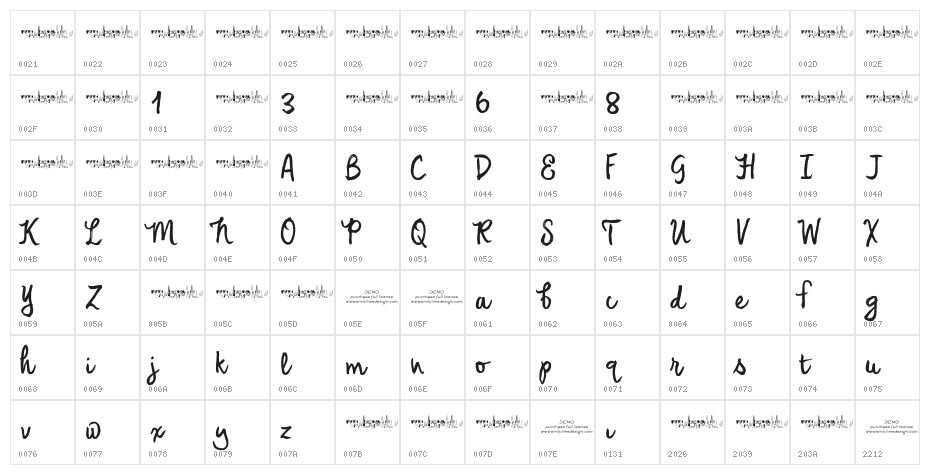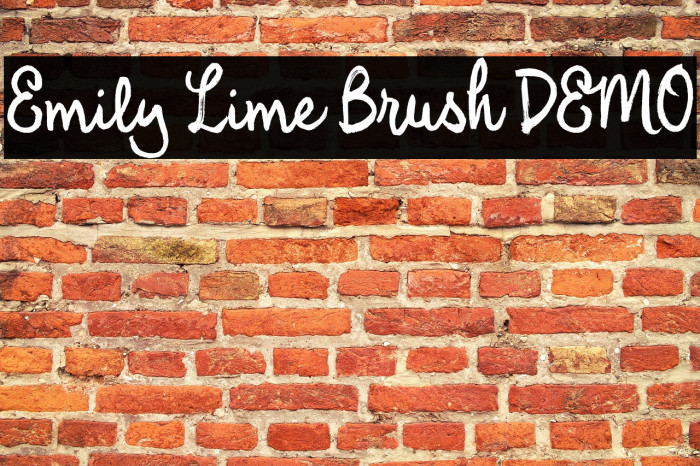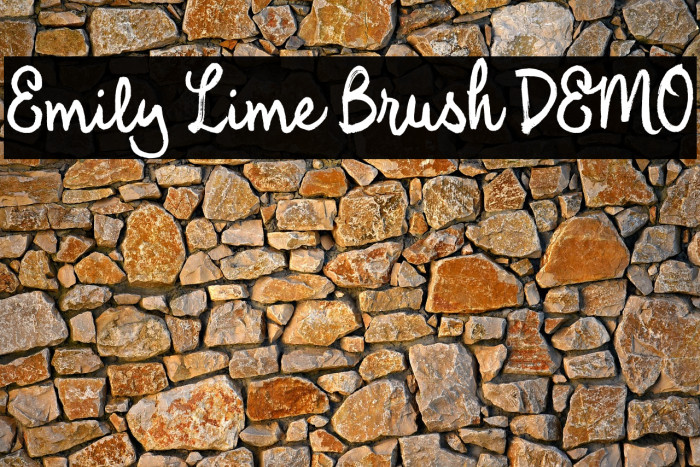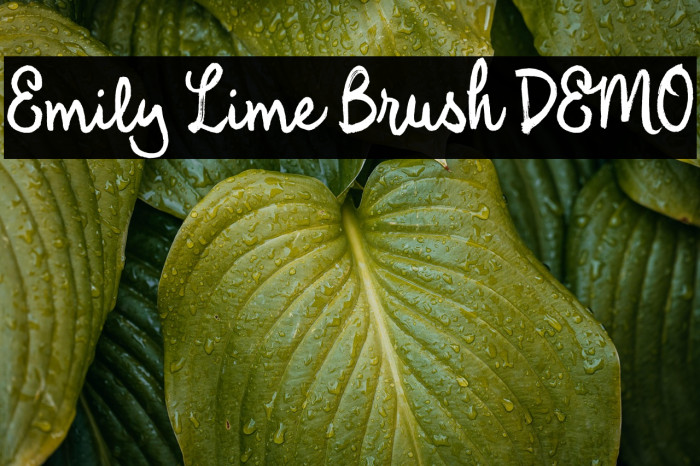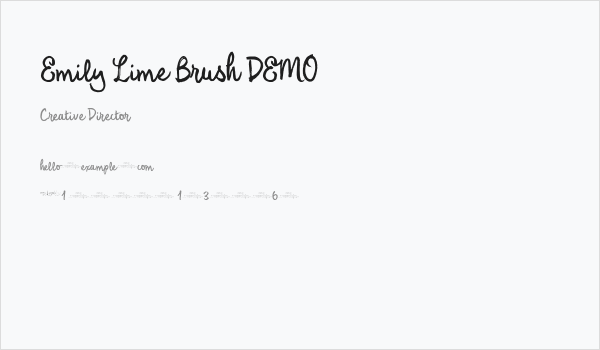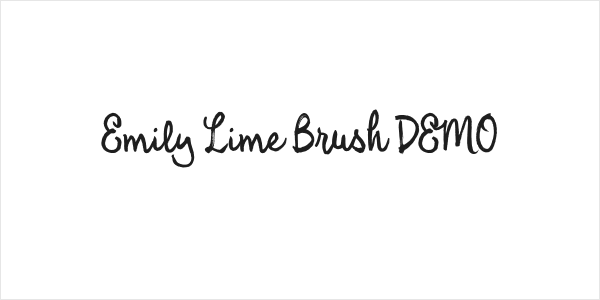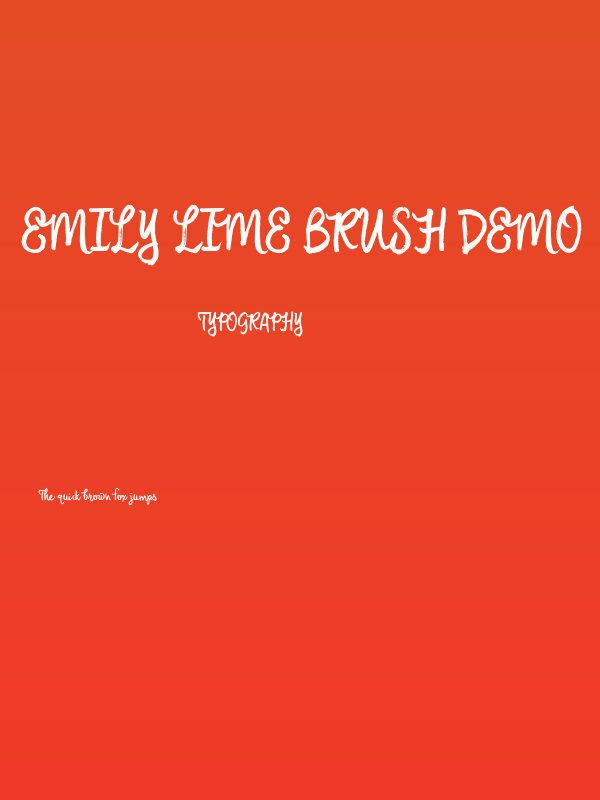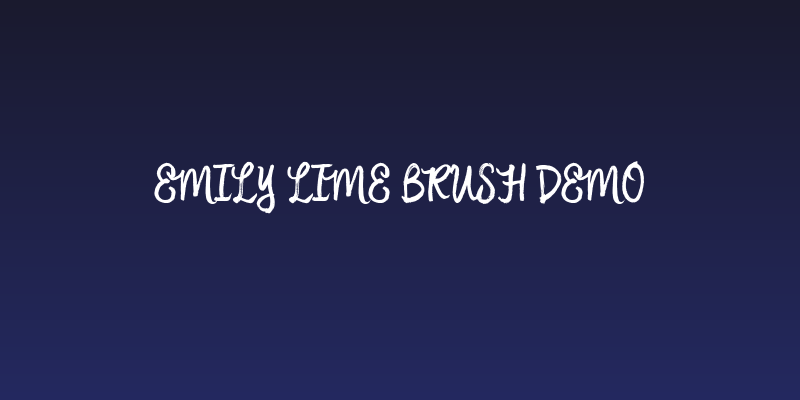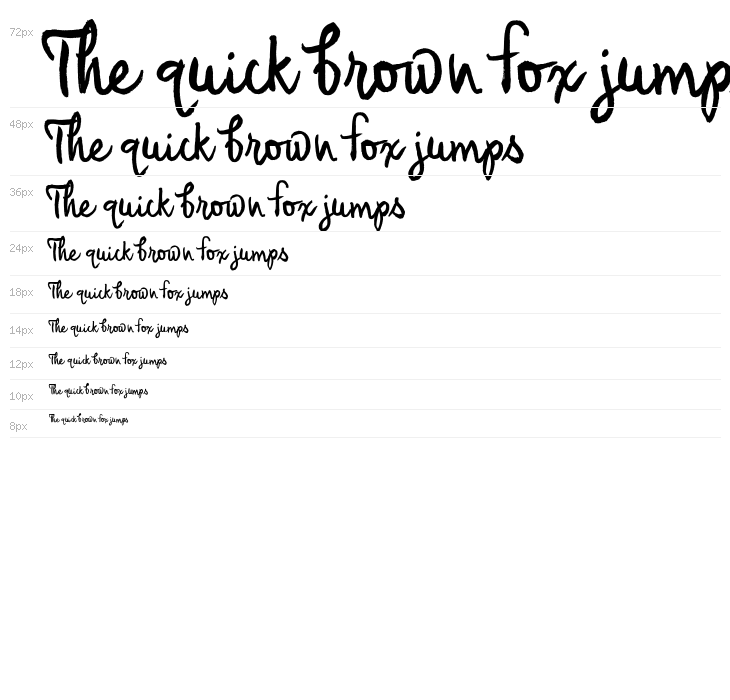
Emily Lime Brush DEMO Font
Emily Lime Brush DEMO Description
This font features a dynamic and expressive brush style, characterized by its bold and fluid strokes. The letters exhibit a hand-drawn quality, with varying thickness that adds a sense of movement and energy. The uppercase letters are bold and commanding, while the lowercase letters maintain a playful and approachable feel. The numbers and special characters are consistent with the overall style, ensuring a cohesive look across all text. The font's brush-like appearance makes it ideal for projects that require a personal and artistic touch.
| Proposed Projects | Ideal for branding, packaging design, posters, and any project requiring a personal, artistic touch. |